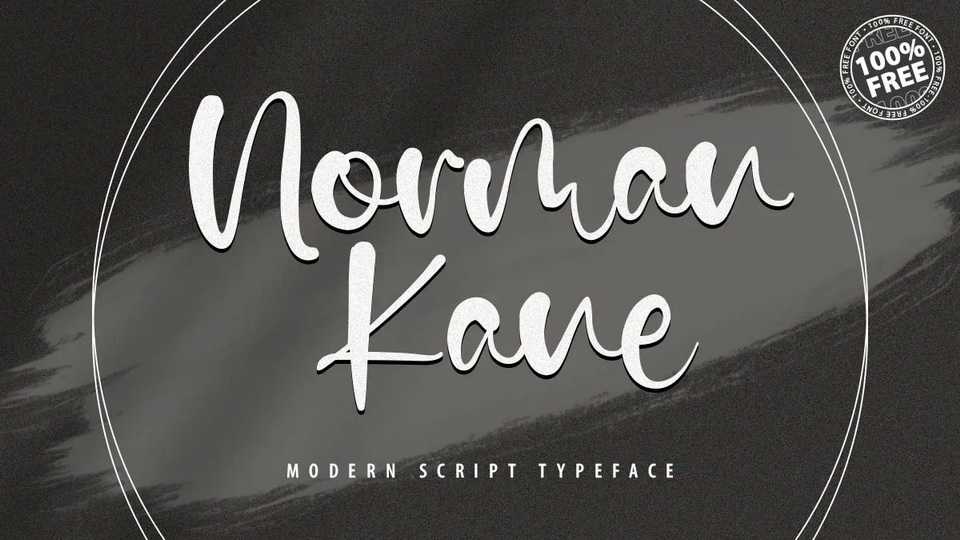
Download Norman Kane font, a simple handwritten script with a natural look. Norman Kane font is very suitable as to make adorable invitation for wedding, birthday, special day, crafts and prints.
Designer: Kong Font Studio